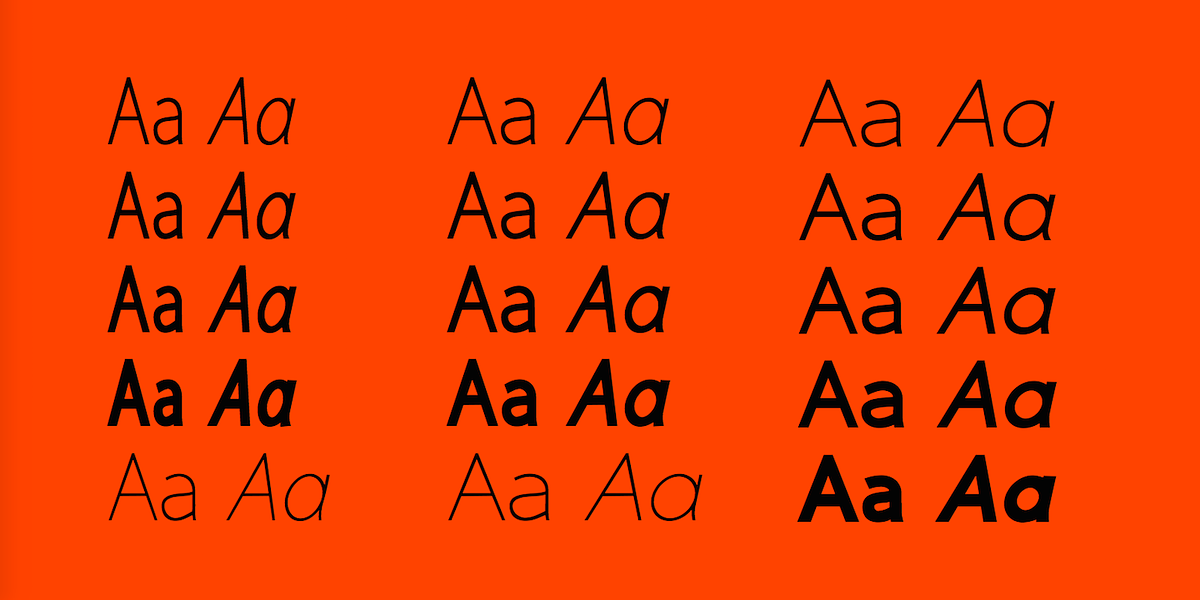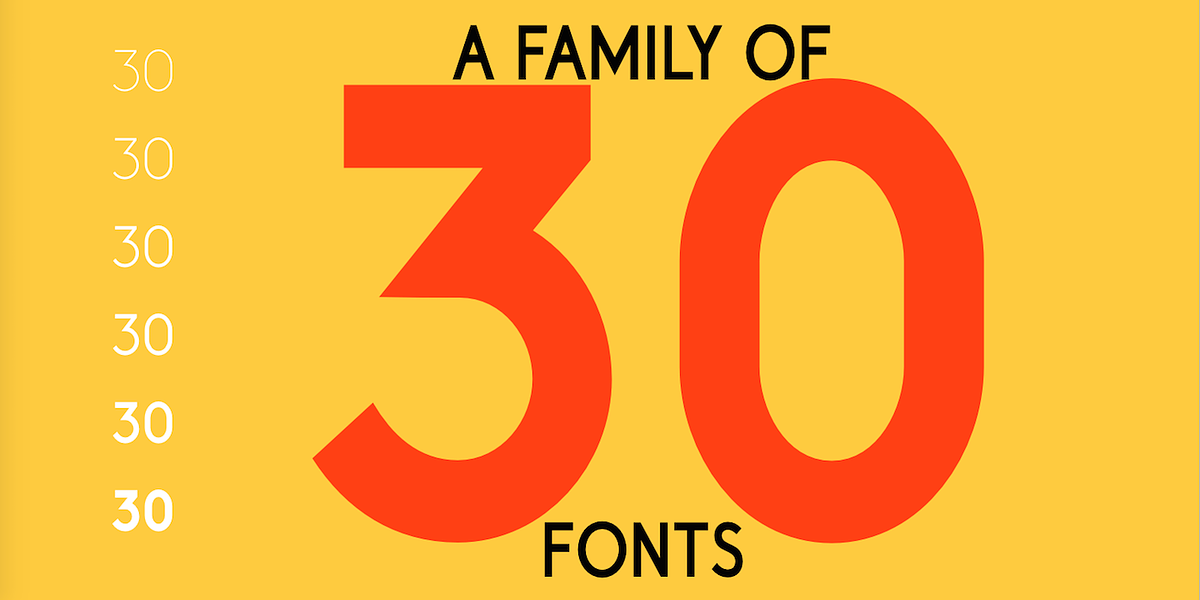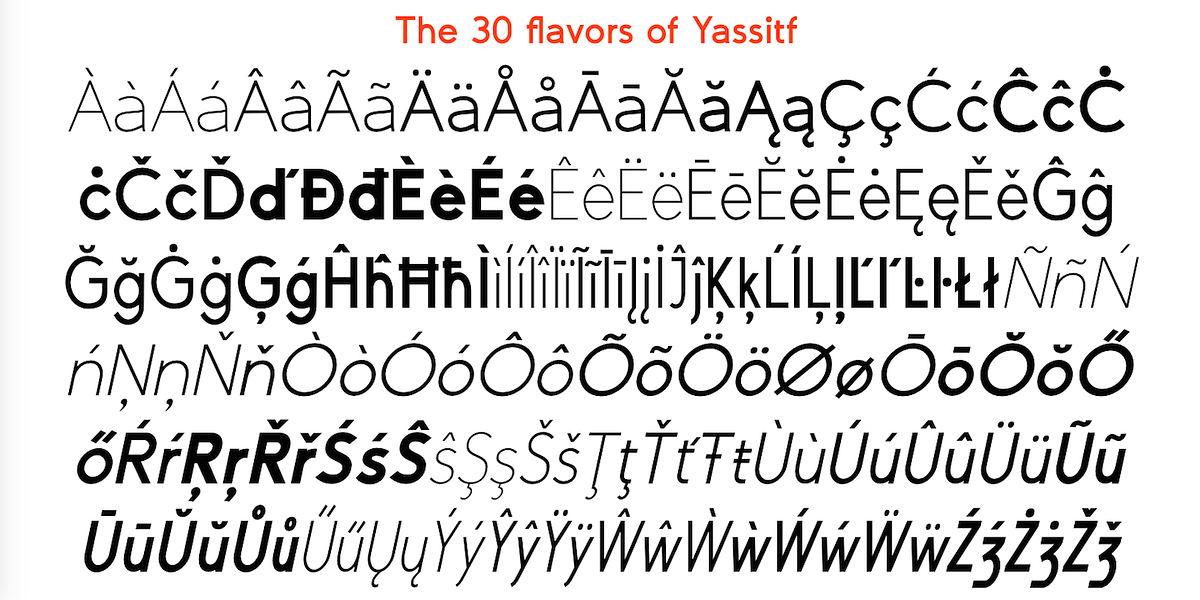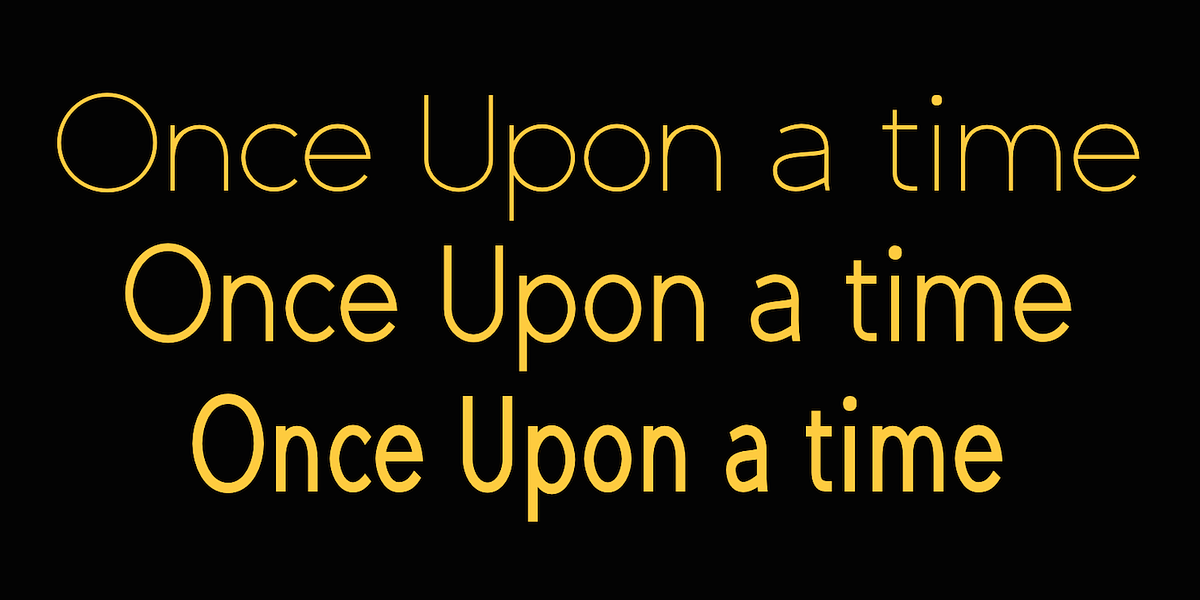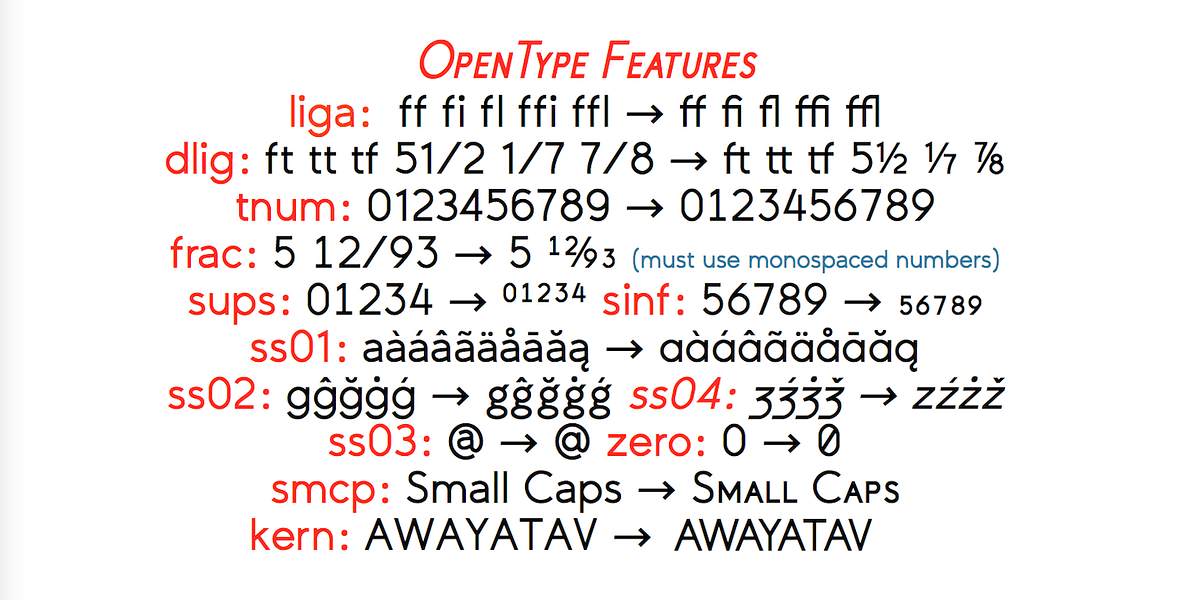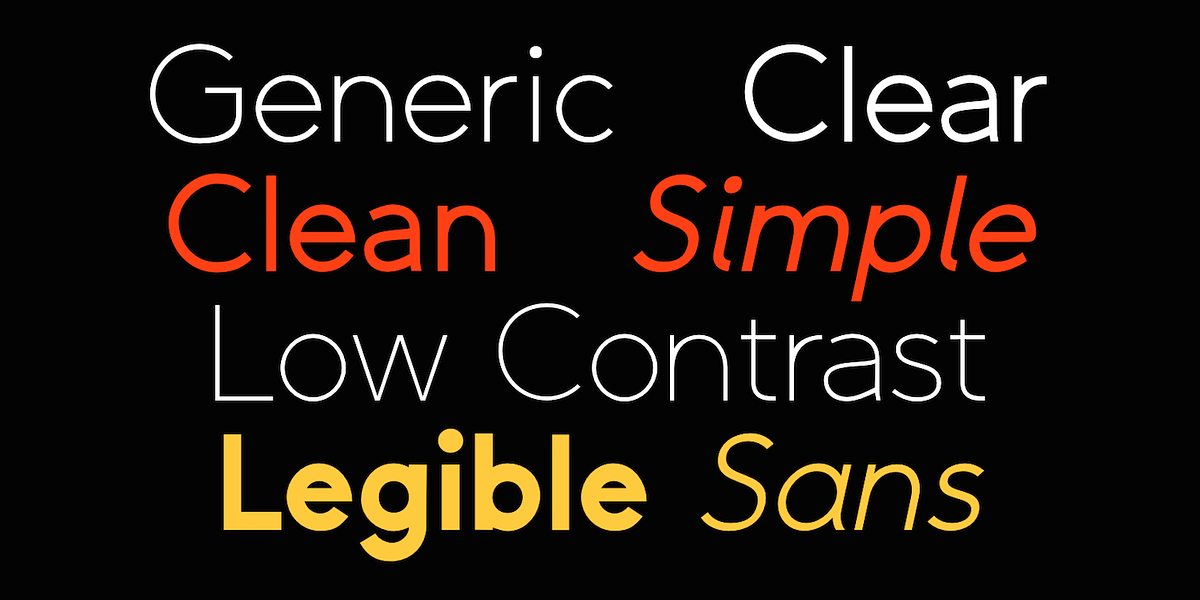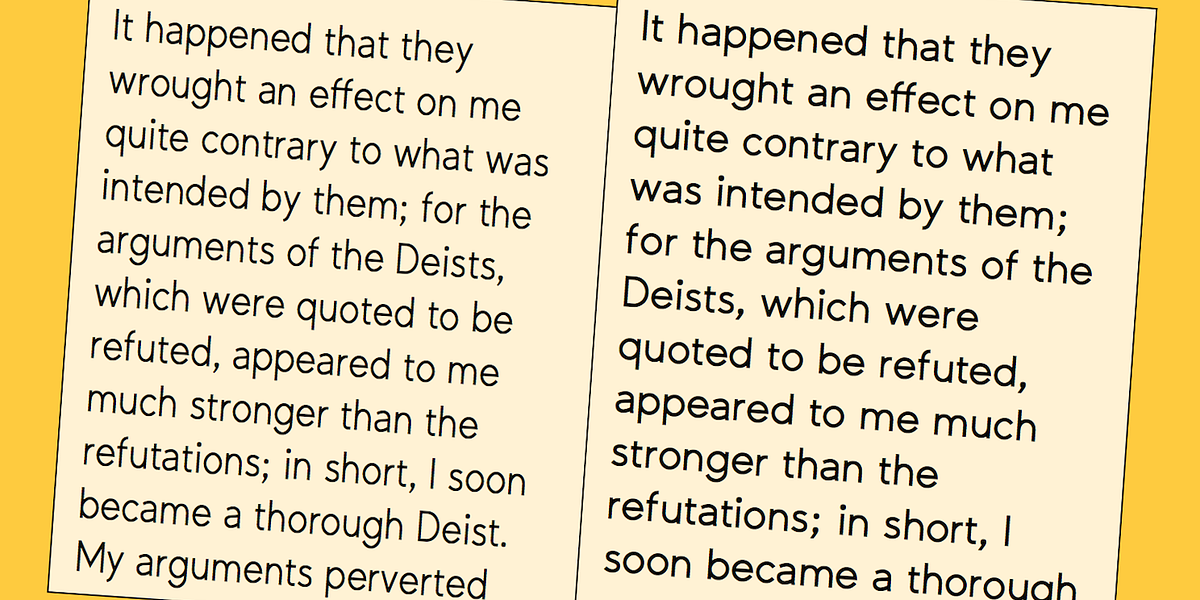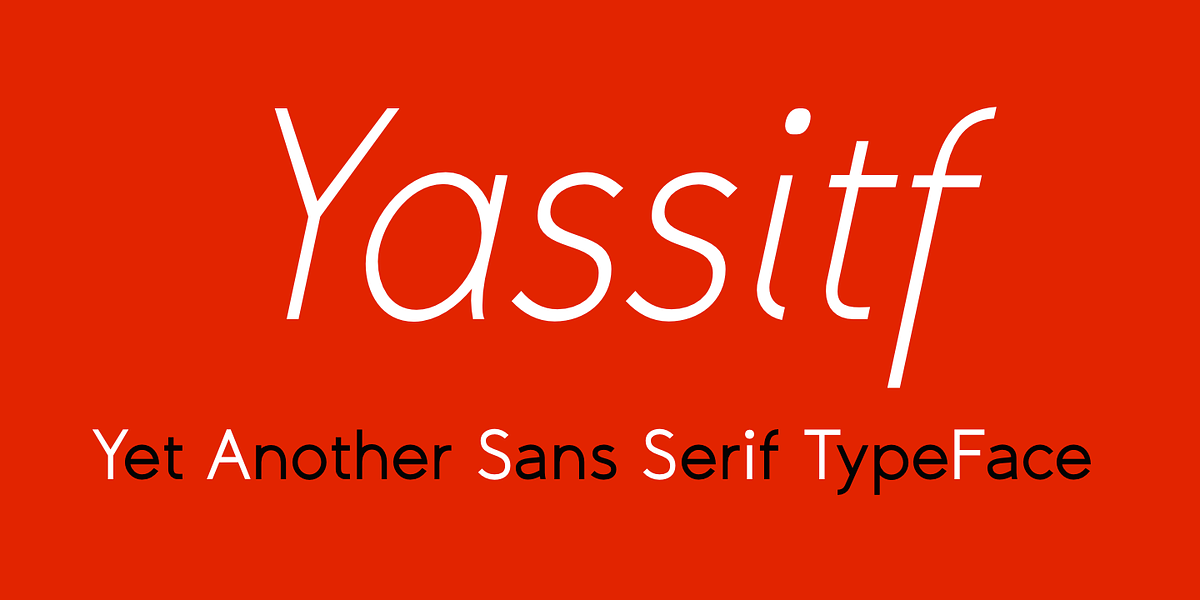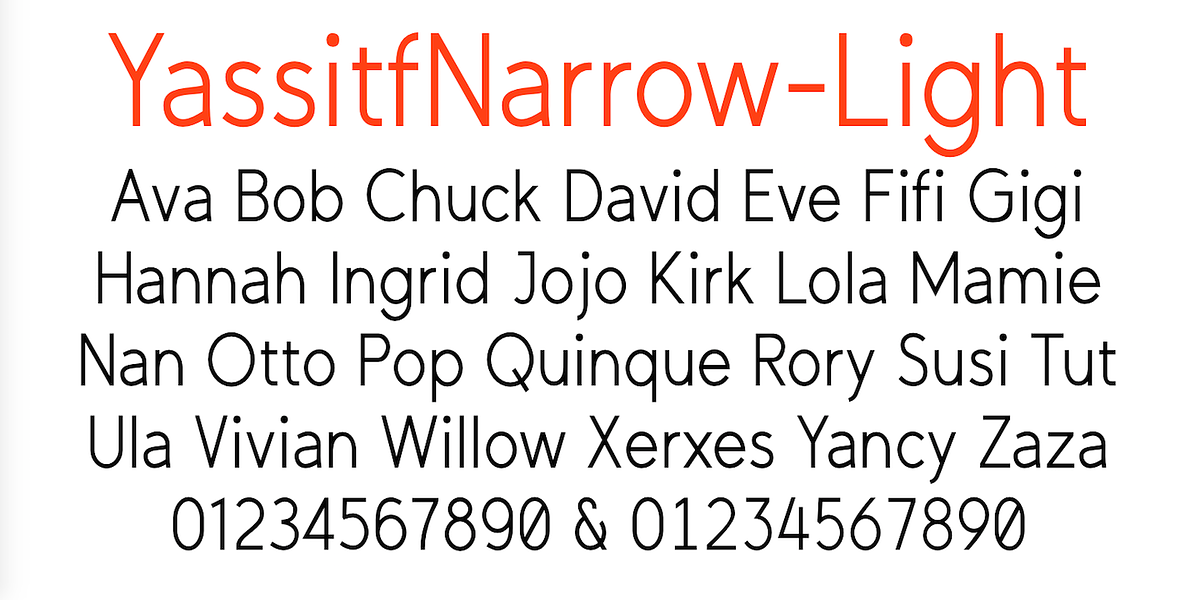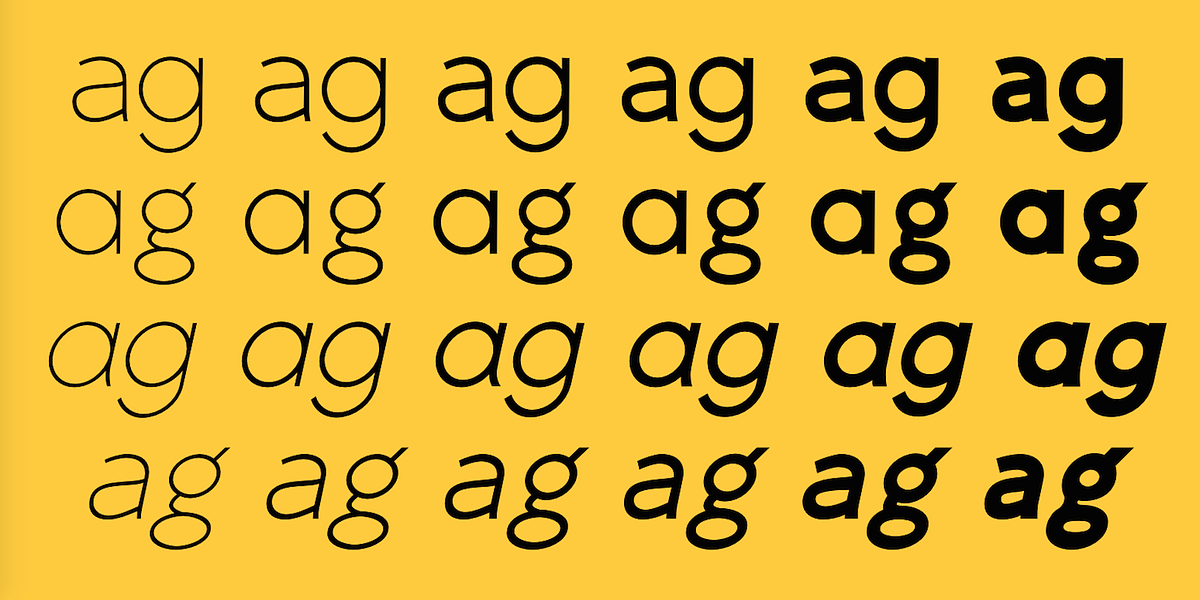
Yassitf
Yassitf is a versatile geometric sans-serif typeface designed for both display and text applications. Its neutral aesthetic and wide range of weights and widths make it suitable for headlines, body text, and various design projects requiring a clean and legible font.